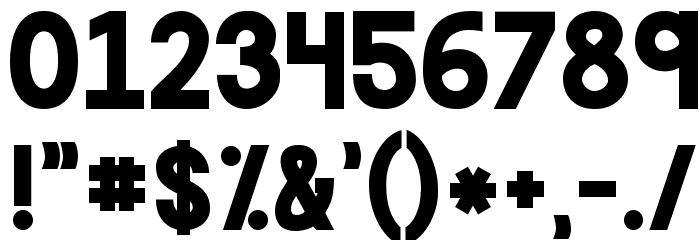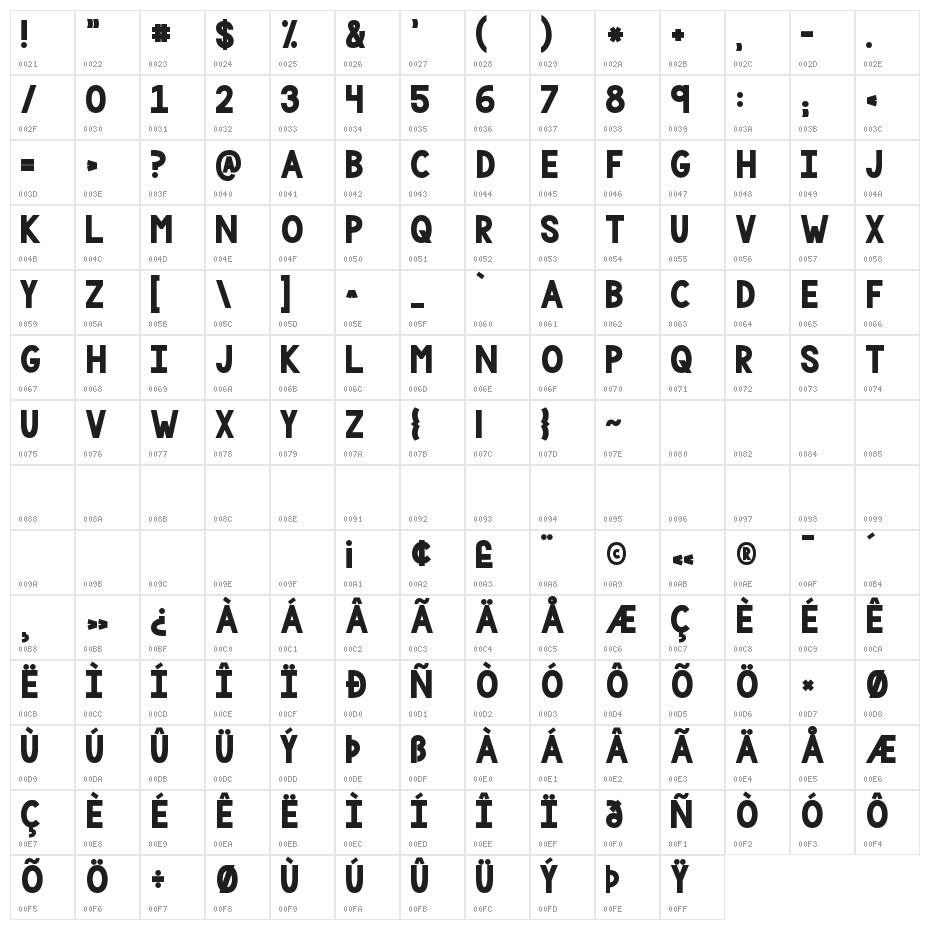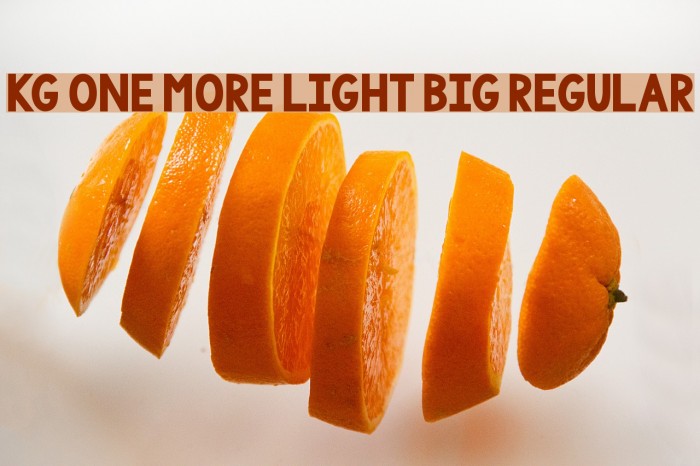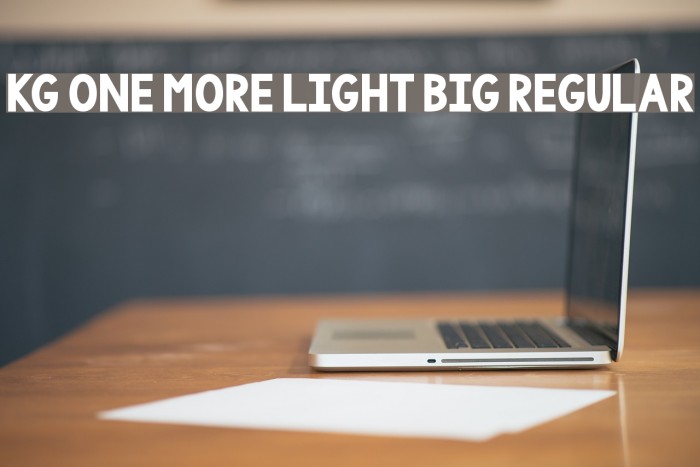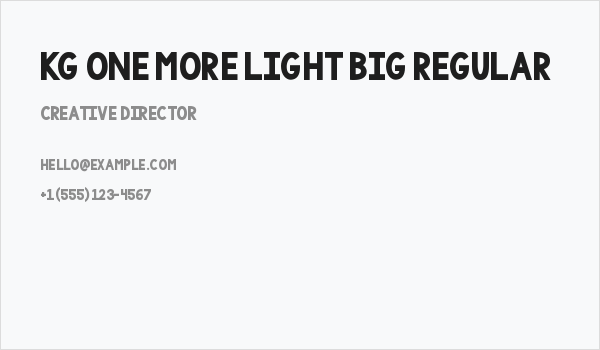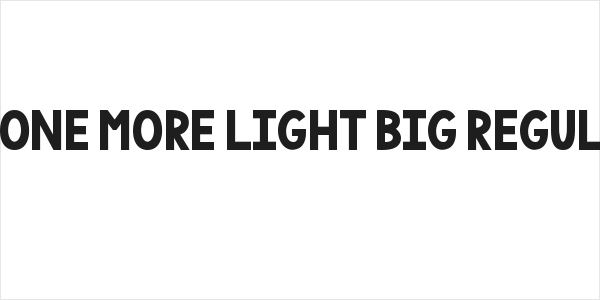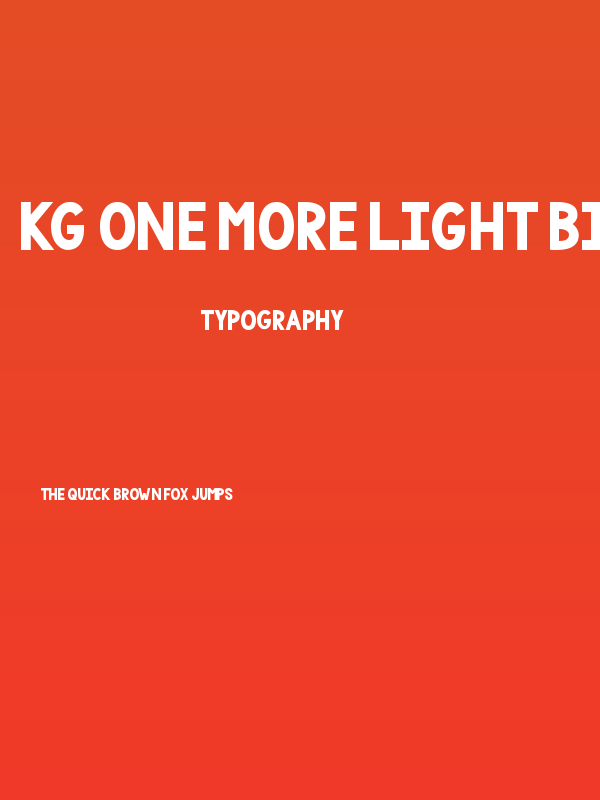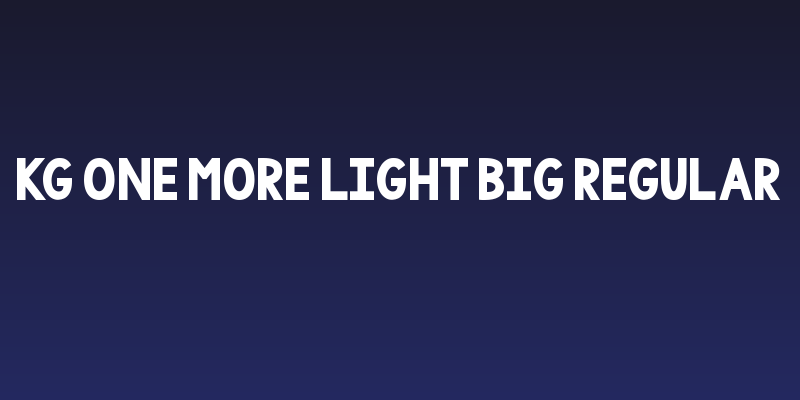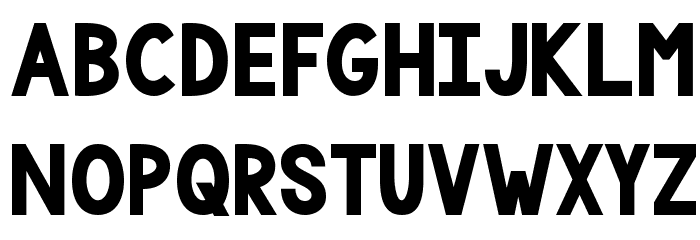
KG One More Light BIG Regular Font
KG One More Light BIG Regular Description
This font features bold, uppercase and lowercase letters with a strong, impactful presence. The characters are evenly spaced, providing a clean and organized appearance. The numbers are equally bold and consistent with the overall style, ensuring readability and uniformity. Special characters are included, maintaining the same boldness and clarity. The font's design is straightforward, making it suitable for a variety of uses where clarity and emphasis are needed.